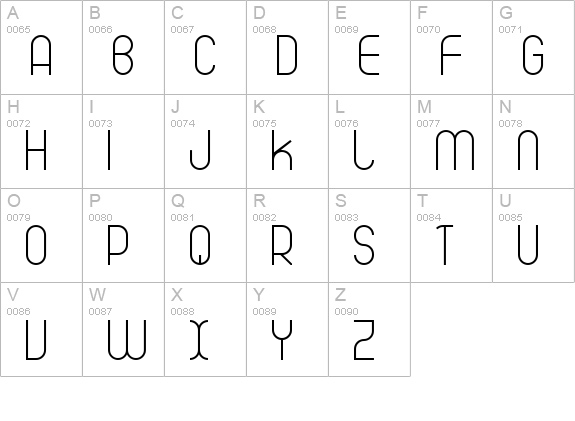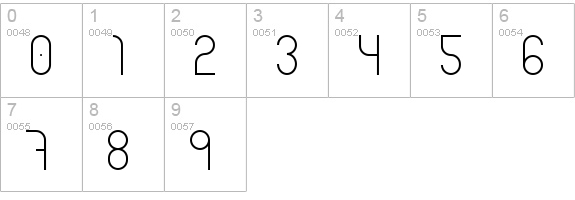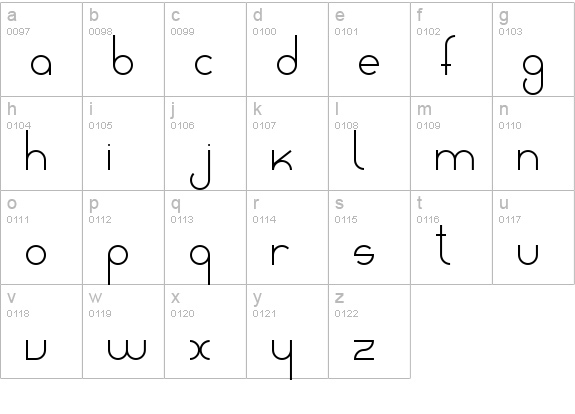
Amable Sans is a free for personal use font in the Fancy category, designed by raja. It has been downloaded 364 times and is available for Windows, Mac and Linux.
Amable Sans is a modern and versatile typeface that exudes elegance and sophistication. With its clean lines and balanced proportions, this font is perfect for a wide range of design projects, from branding and packaging to editorial and web design. Its crisp and legible appearance makes it suitable for both display and text use, ensuring readability across various platforms.